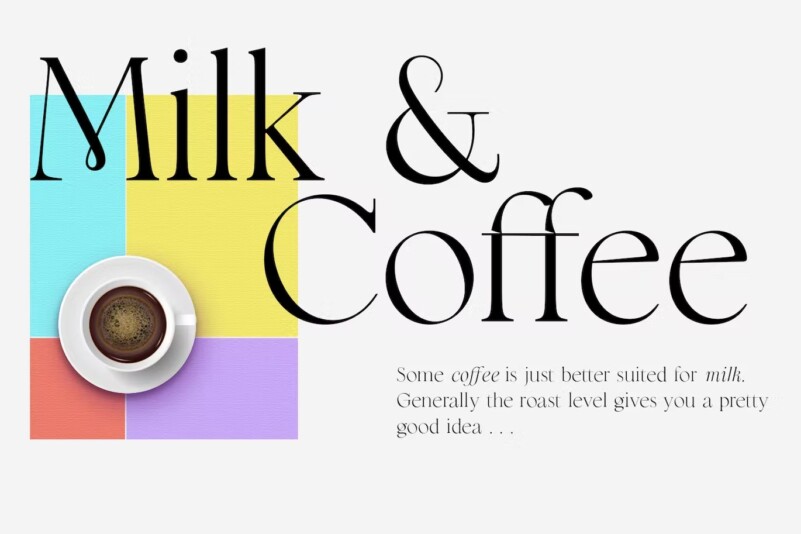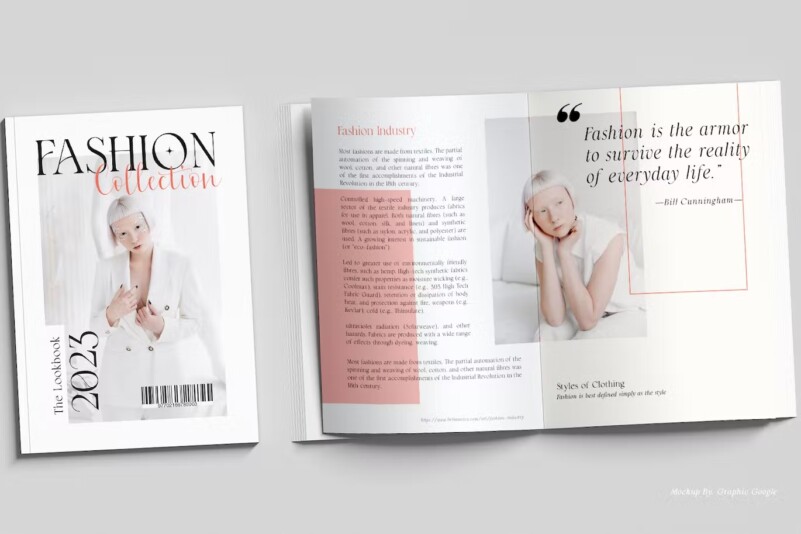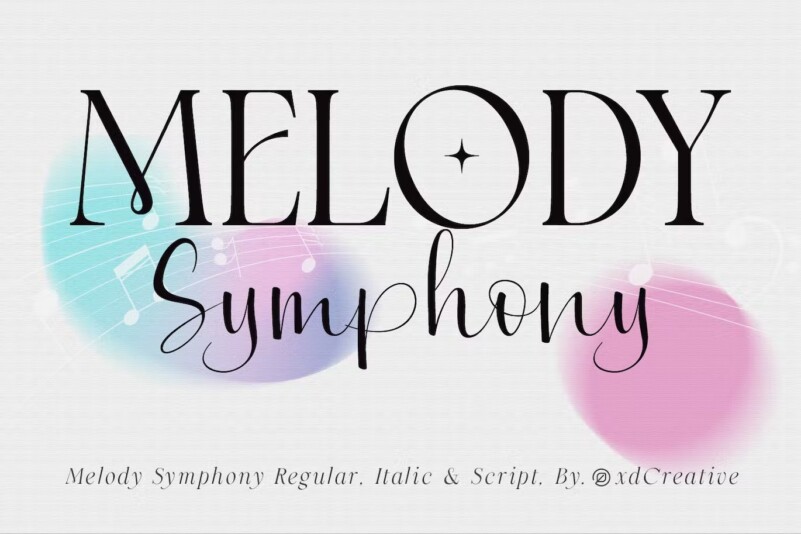
Melody Symphony Font Duo
Say hello to “Melody Symphony” the latest family from @faldykudo. the “Melody” is a feminine and modern serif that has a slim construction and anatomy combined with a “Symphony” hand-drawn modern calligraphy it is perfect for your various design needs.
“Melody Symphony” would look great for logos & branding, invitations, stationery, wedding designs, social media, advertisements, printed quotes, product packaging, labels, photography, watermarks, special events, or even magazine layouts.